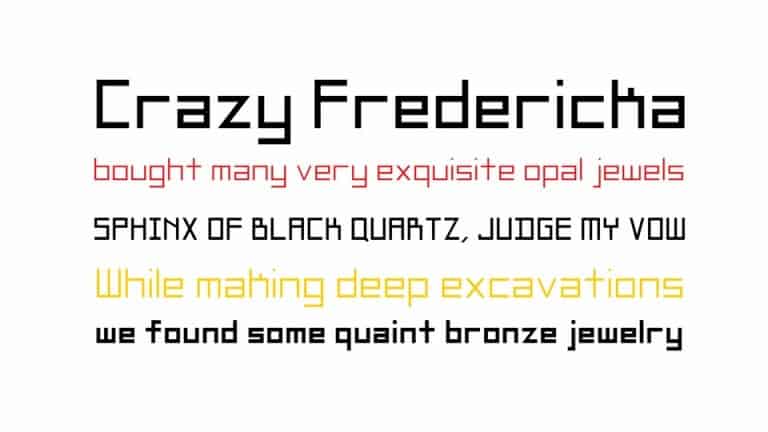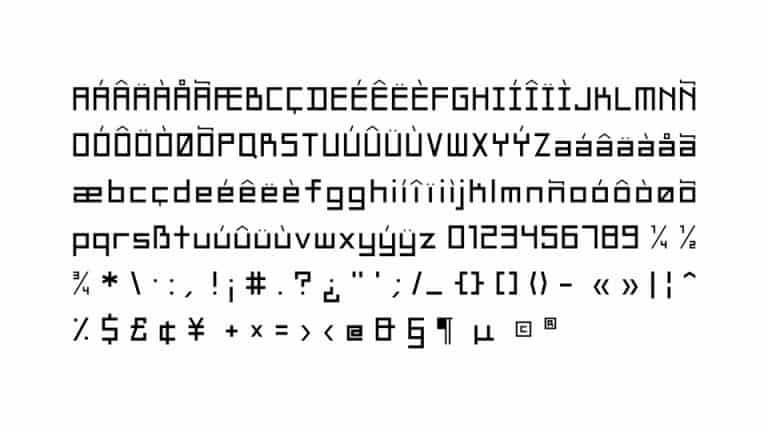
Thanks for checking out Square Display Font is a geometric font family in three weights with square counterforms, giving the shapes a strong masculine and futuristic look, great for applications like innovation, technology, art and other display use. This font is fit for display, large usage, brand, titles, short text, web headlines and ample of other possibilities.